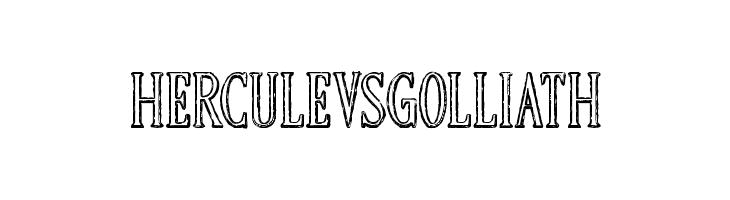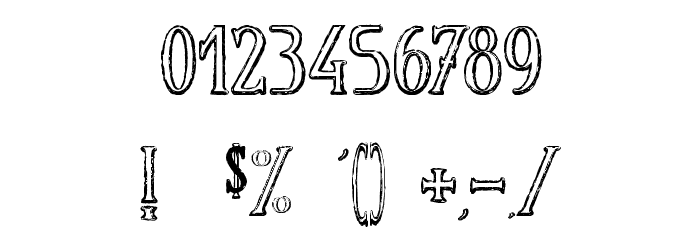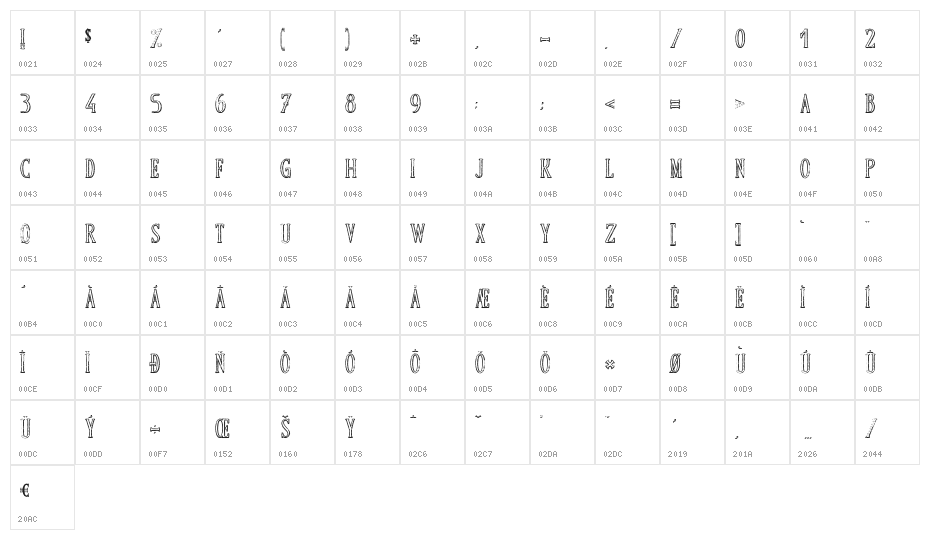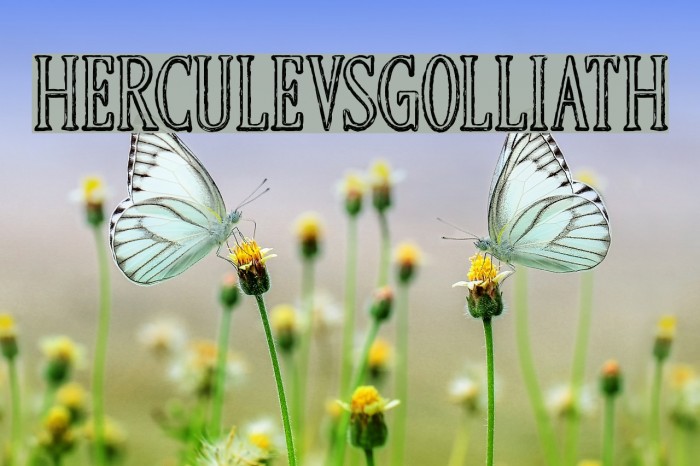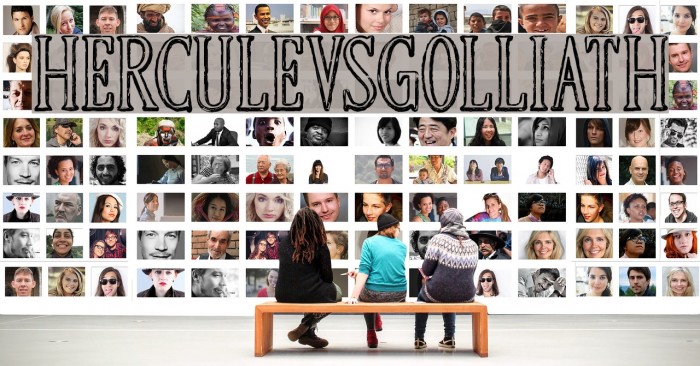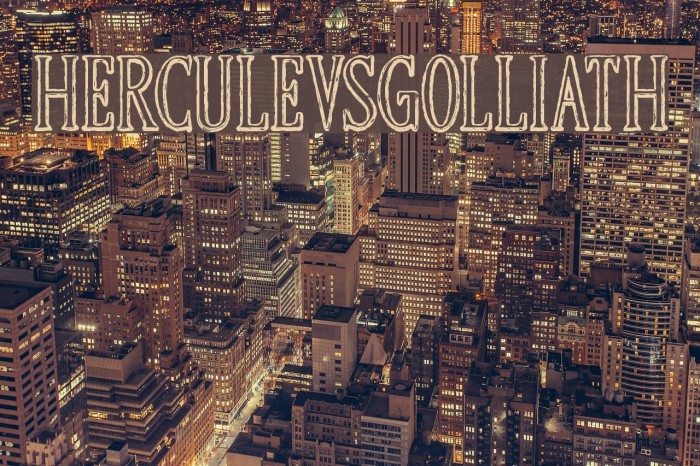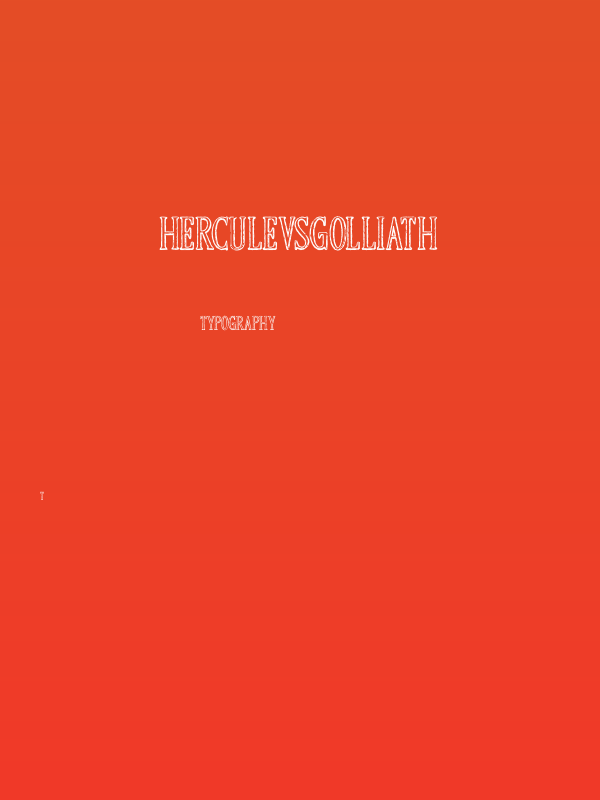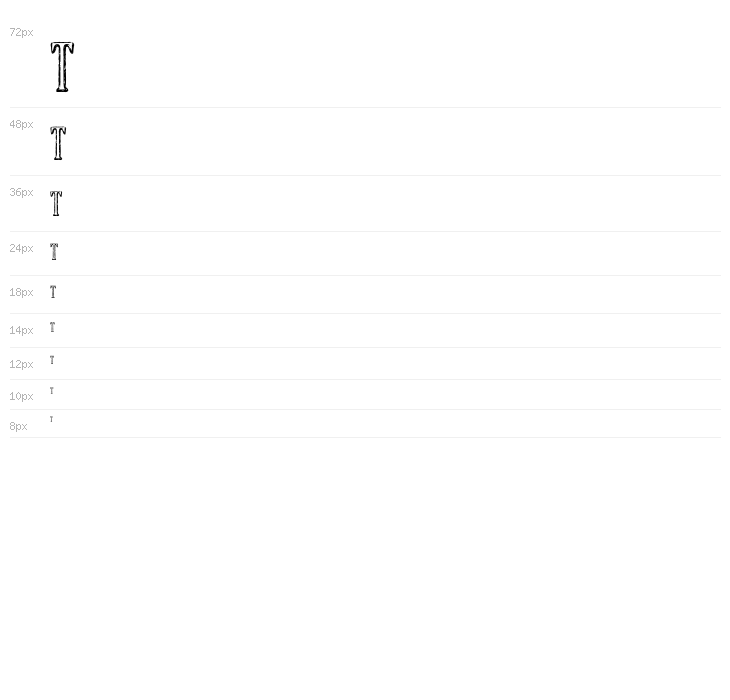
HERCULEVSGOLLIATH Font
HERCULEVSGOLLIATH Description
This font features a bold and dramatic style with a hand-drawn, textured appearance. The uppercase letters are tall and slightly condensed, giving a sense of strength and power. The numbers and special characters maintain the same boldness and texture, ensuring consistency across all elements. The strokes are uneven, adding a rustic and vintage feel, while the overall design is reminiscent of classic woodcut or engraved typefaces. This font is ideal for projects that require a strong visual impact and a touch of historical or artisanal charm.
| Proposed Projects | Perfect for posters, book covers, branding, and any design requiring a bold, vintage aesthetic. |